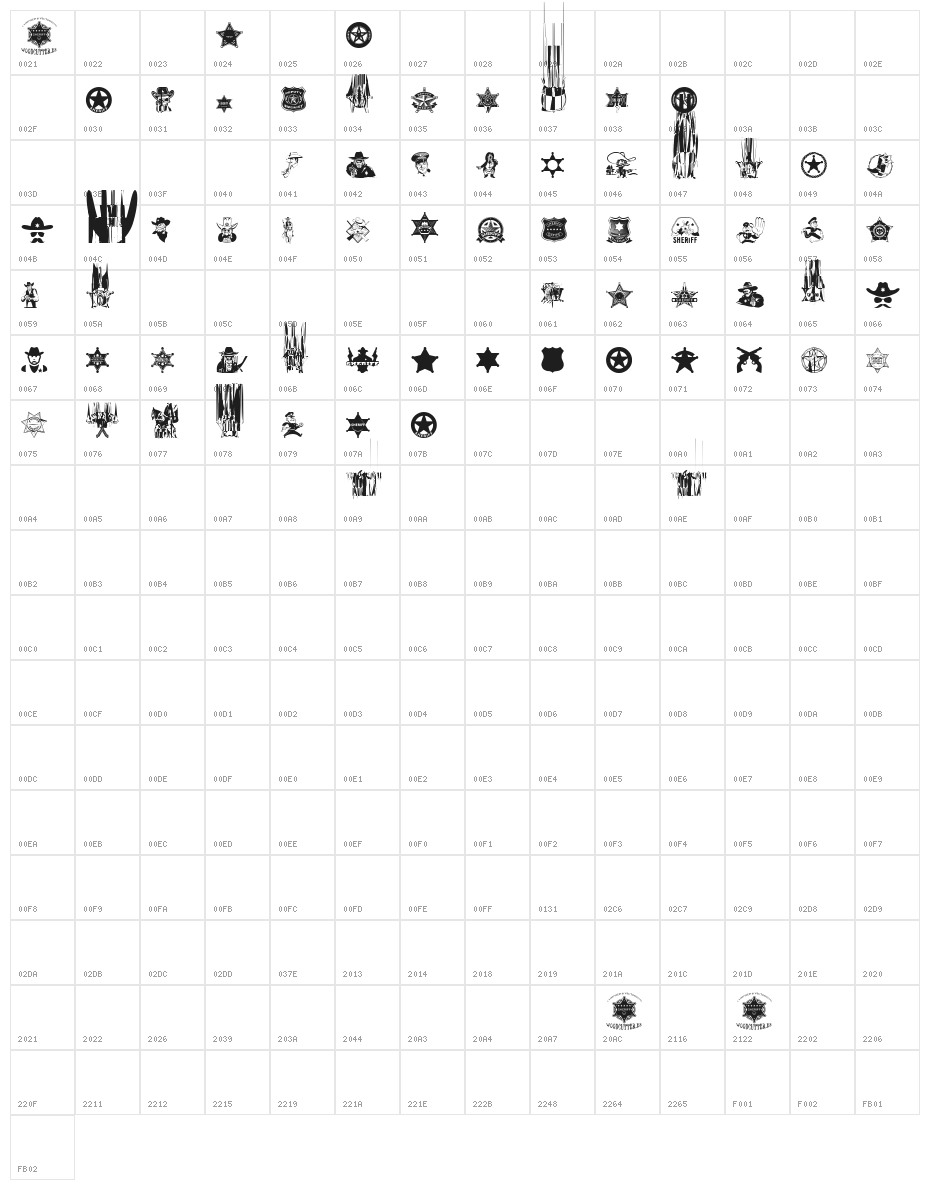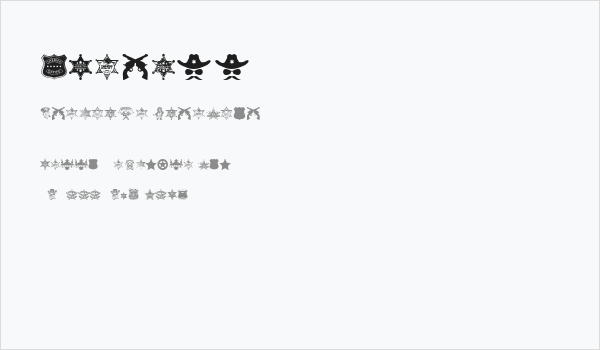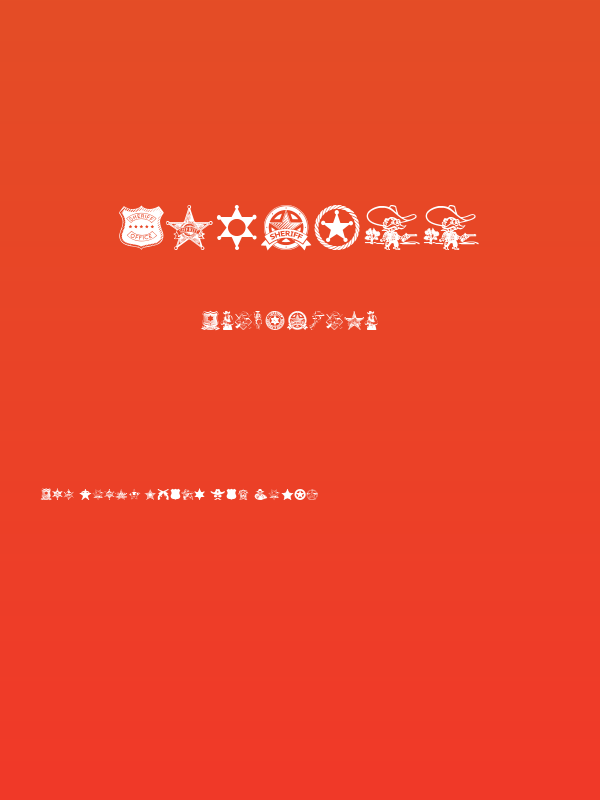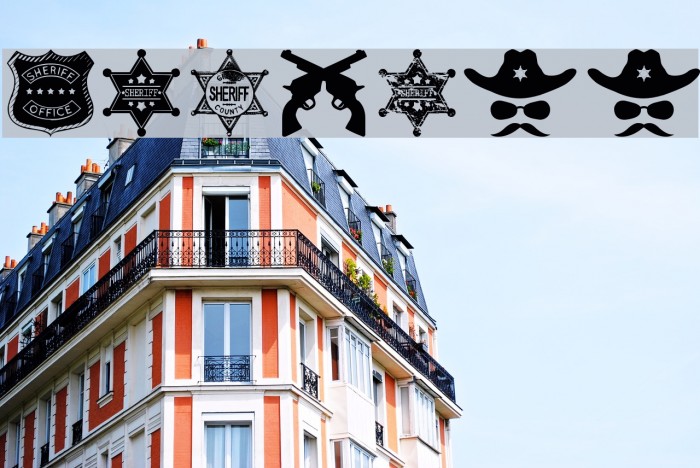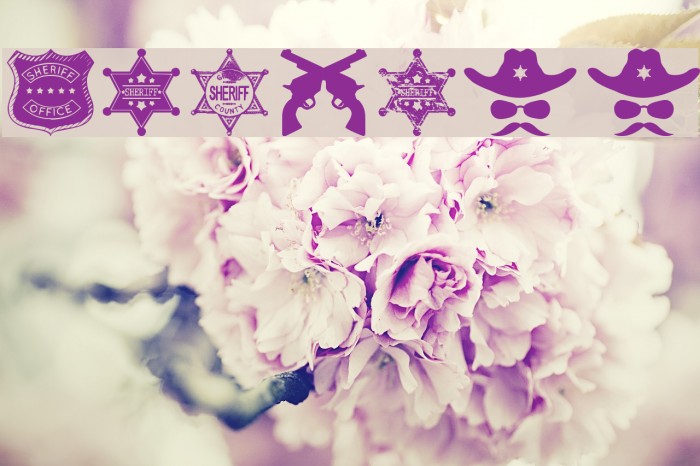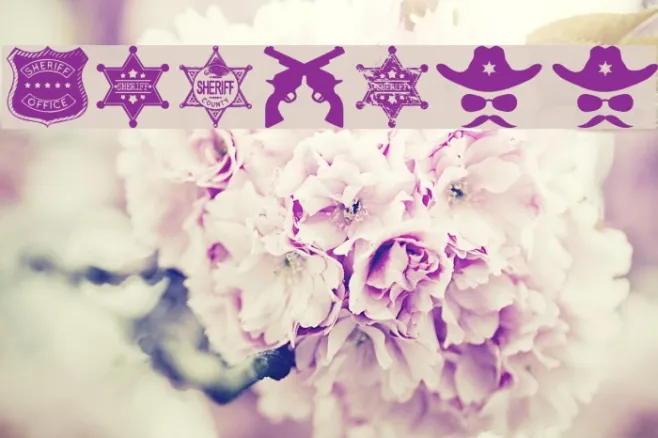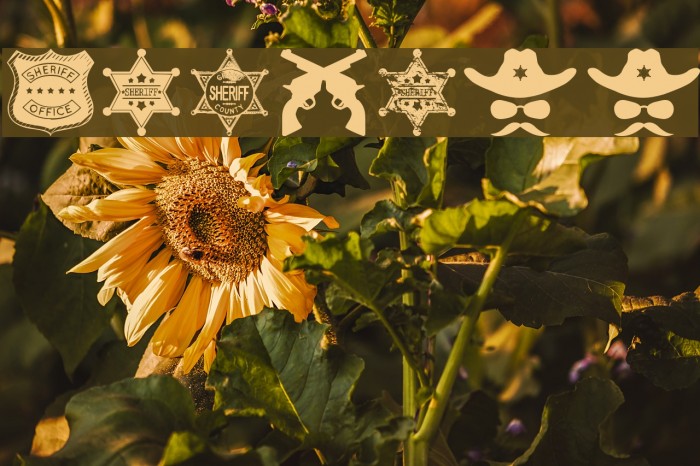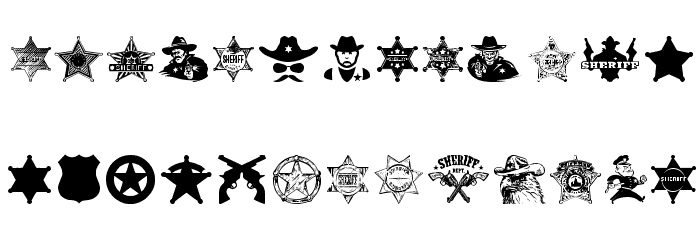
Sheriff Font
Sheriff Description
A decorative, illustrative font featuring a variety of sheriff-themed icons, including badges, hats, stars, and Western motifs. Each character is represented by a unique pictogram rather than a traditional letterform, evoking a playful and thematic Wild West aesthetic.
| Overall Style | Decorative, Western, Playful |
| Use Case | Logos, Posters, Themed Graphics, Event Materials |
| Proposed Projects | Party invitations, themed posters, children’s books, Western event branding, novelty signage. |